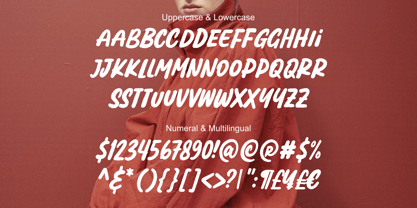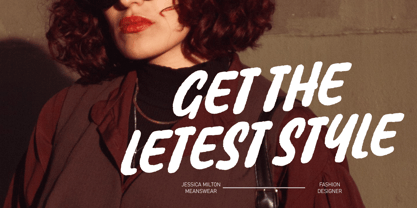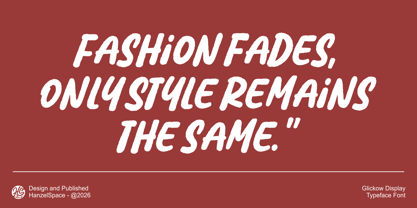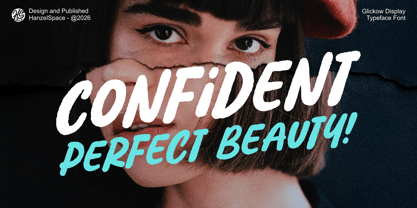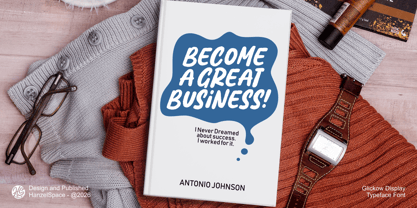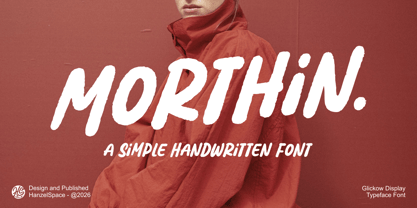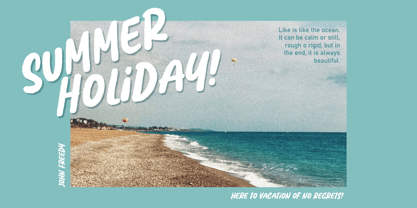
Morthin
The Morthin Font Family was designed by Hanief Farandi and published by Hanzel Space. Morthin contains 1 styles. More about this family
Proudly Present "Morthin" is an organic handwritten typeface. This font is designed with a bold texture and caps lock, giving it the appearance of authentic handwriting. This font is also suitable for use in logos and various other formal applications such as invitations, labels, magazines, books, greeting/wedding cards, packaging, fashion, cosmetics, stationery, novels, labels, and any type of advertising.
Features:
• Uppercase & Lowercase
• Numerals & Punctuation
• Multilanguage Supports